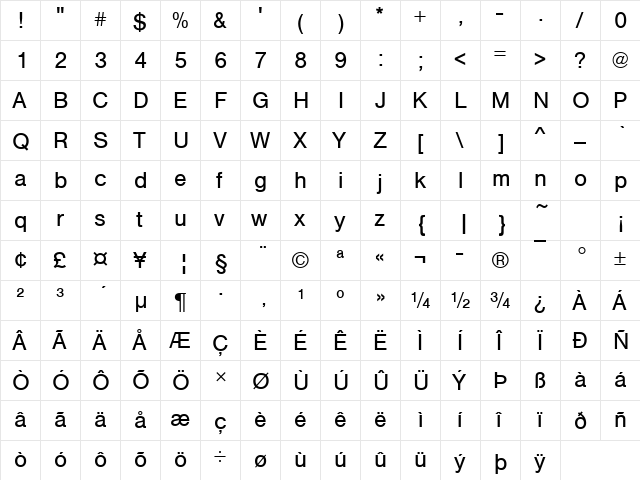
NimbusSanT Regular
Design Context for NimbusSanT Typeface
NimbusSanT offers clean, dependable letterforms without strong stylistic allegiance, making it a practical choice for designers who need flexibility.
Pro Tip: Pair NimbusSanT with a font of contrasting weight or personality to build a more expressive typographic hierarchy.